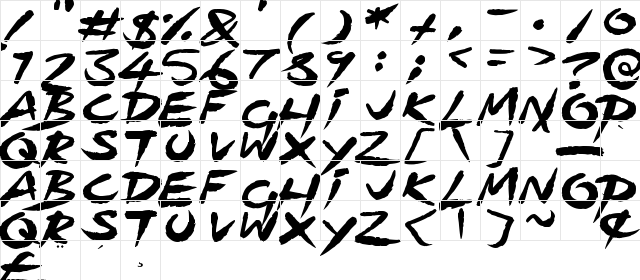
Speeding Brush Regular Font Preview
Speeding Brush Regular
Speeding Brush Regular Font Details
Design Context for Speeding Brush Typeface
Speeding Brush flows with the natural rhythm of handwritten lettering, making it ideal for designs that call for warmth and personal expression.
Font Pairing: Combine Speeding Brush with a simple geometric sans for maximum contrast — the tension between flowing curves and clean structure is a classic typographic pairing.
Pro Tip: Use Speeding Brush for short runs of text — names, titles, or taglines. Extended body copy in script faces tires the eye quickly.